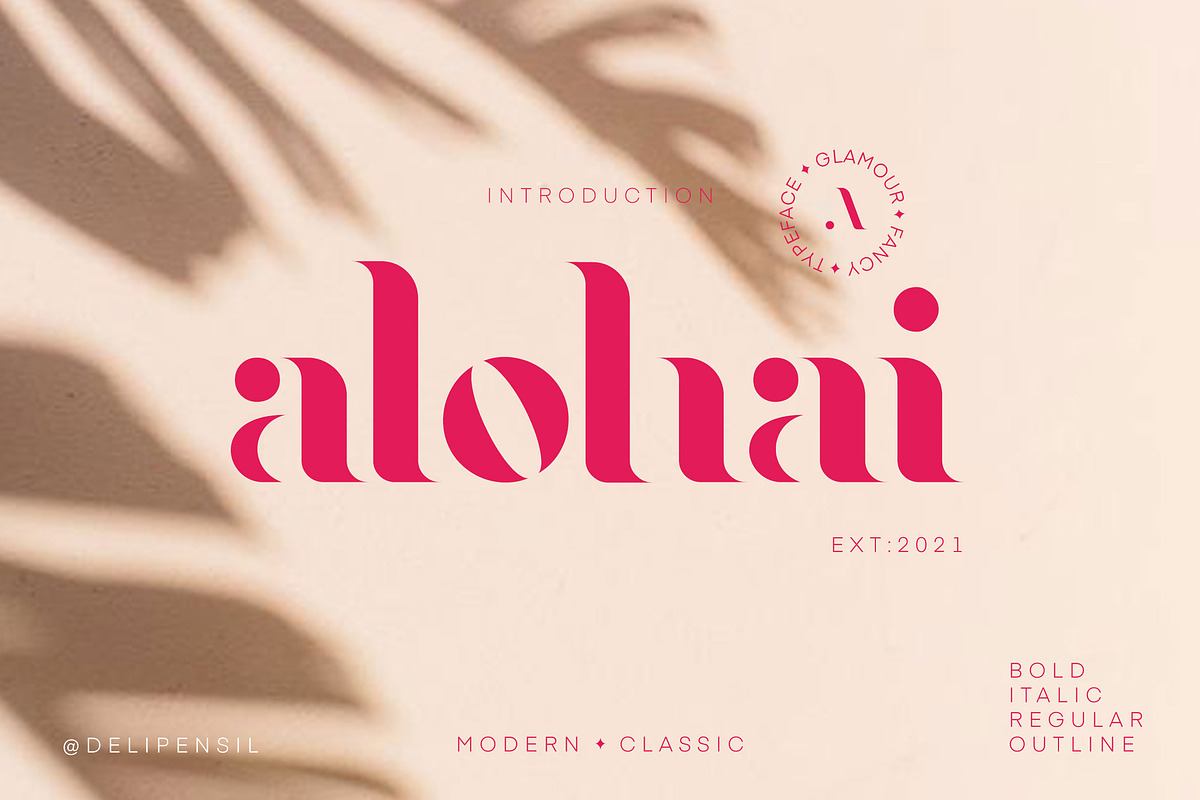
Alohai Feminim Serif Typeface Free Download
Alohai Feminine Serif Typeface Free Download
Alohai Feminine Serif Typeface Free Download is a graceful and elegant serif font designed with a delicate and feminine touch. With its refined curves and sophisticated letterforms, this typeface is perfect for high-end branding, wedding invitations, fashion design, and any project that requires a soft, chic, and stylish aesthetic.
The font combines classic serif elegance with modern design, making it versatile for both luxury brands and creative projects. Whether you're working on a beauty brand, an elegant event, or fashion branding, Alohai adds a touch of femininity and sophistication to your typography.